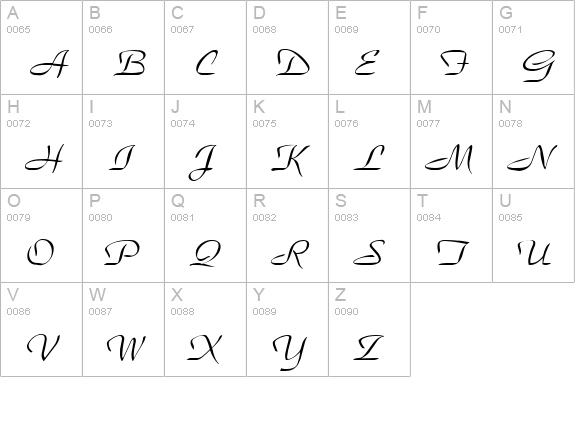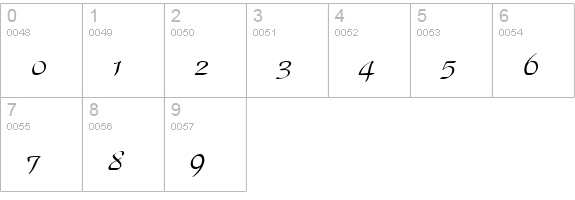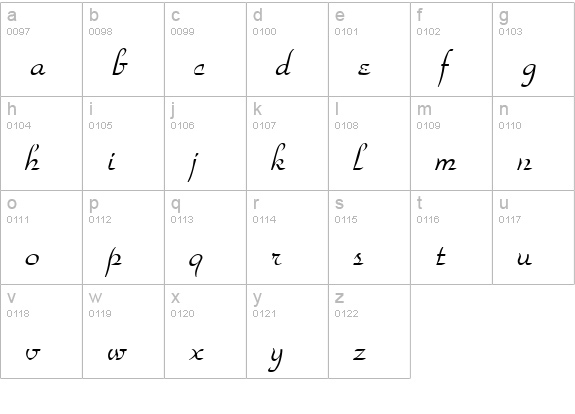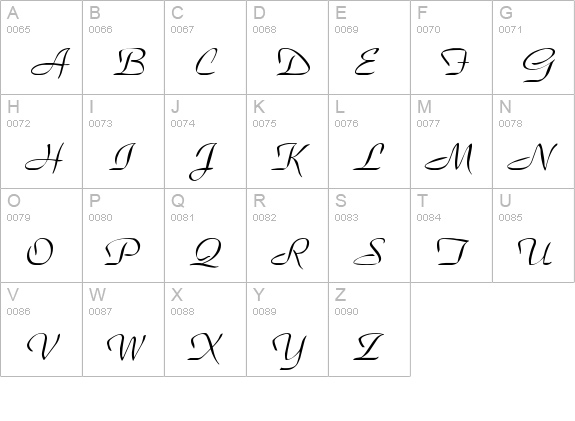
Normajean Font Details
Normajean font is a classic and elegant typeface that exudes sophistication and charm. With its timeless design and modern twist, this font is perfect for a wide range of creative projects, from branding to editorial design. Its clean lines and balanced proportions make it highly versatile and easy to read, making it an ideal choice for both print and digital applications. What sets Normajean font apart is that it is available for free download at FontsMarket.com. This means that you can easily access and use this beautiful font in your projects without any cost. Whether you're a designer looking to add a touch of finesse to your work or a business owner in need of a stylish font for your branding, Normajean font is sure to impress with its elegance and sophistication. Download it today and elevate your designs with this stunning typeface.